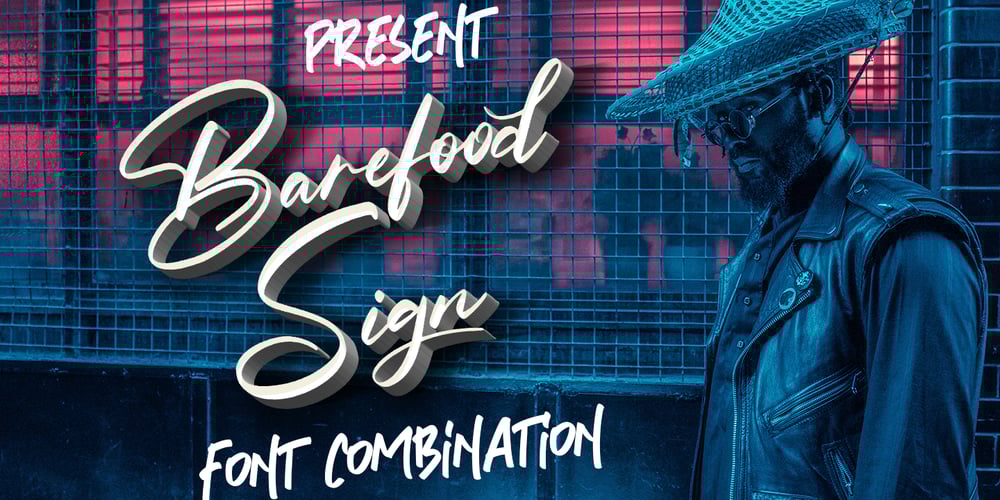
Barefood Sign Font Family was designed by Asep Rendi and published by Arendxstudio. Barefood Sign contains 2 styles and family package options. Barefood Sign carries a modern and classy style, with two weights that work well together.Barefood Sign font which is very elegant and modern for you to use and your design interests be it for logos, branding names, posters, podcasts and so on.Features Uppercase & Lowercase Numbers & Punctuation Multilingual Support Ligatures Alternates